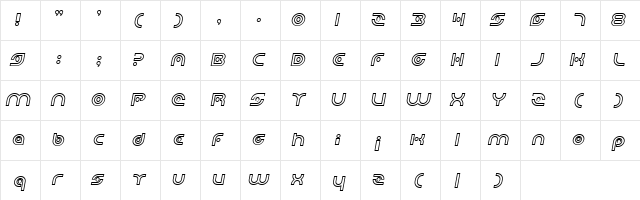
Planetary Orbiter Outline Bold Italic Font Preview
Design Context for Planetary Orbiter Outline Typeface
Planetary Orbiter Outline is built around its visual character rather than neutral utility — its distinctive forms are designed to make an impression at display sizes. The slanted form adds forward momentum and visual energy. Its bold stroke weight gives it real presence on the page.
Font Pairing: Pair with a clean neutral sans-serif for body copy to let Planetary Orbiter Outline's character lead without overwhelming the composition.
Pro Tip: Use Planetary Orbiter Outline exclusively at display sizes — it was designed to be seen, not read at length. Let a neutral companion handle body copy.